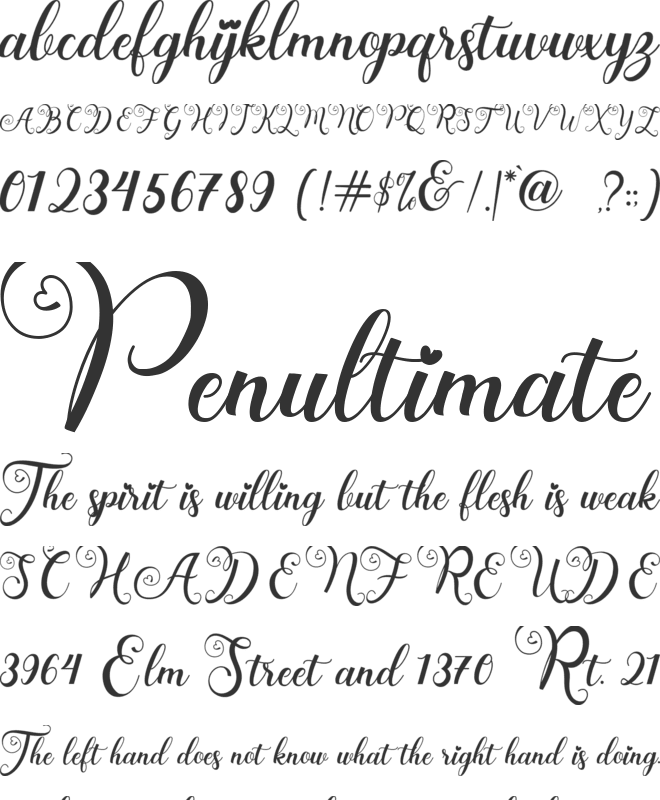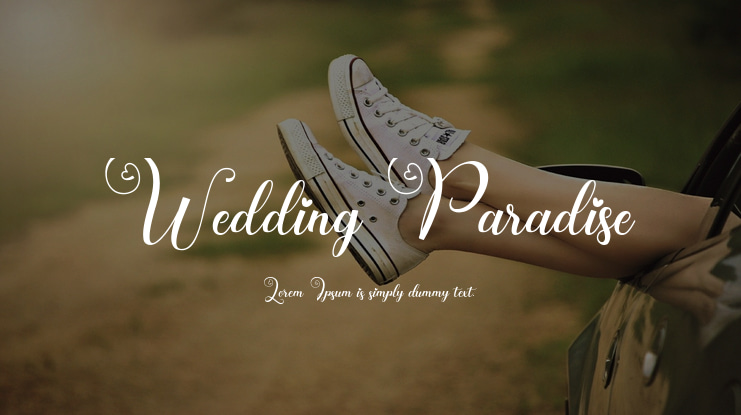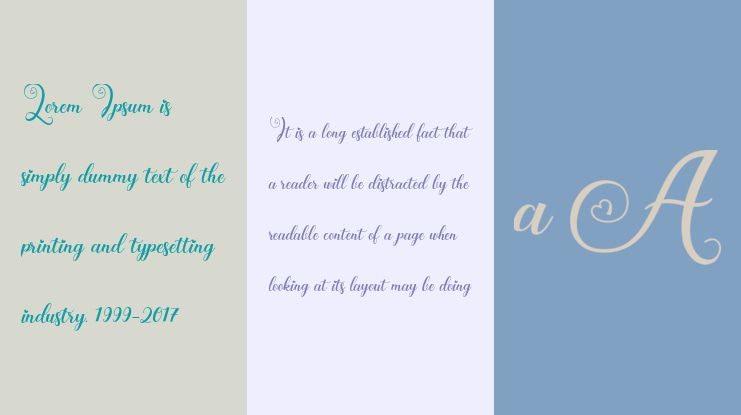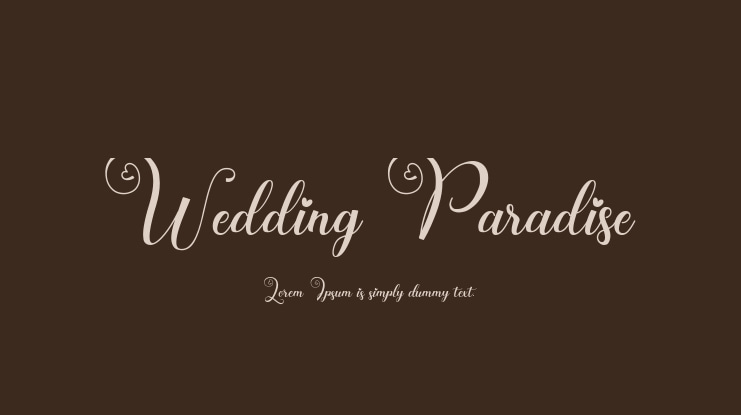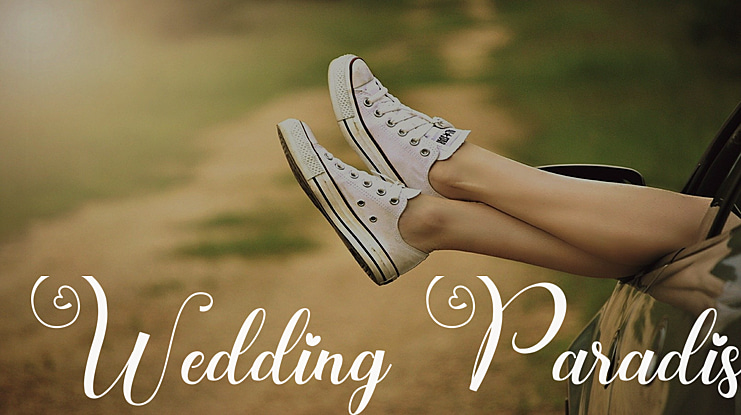
Wedding Paradise Font Family
Introducing Wedding Paradise - Calligraphy Script Font
Wedding Paradise is a smooth, elegant and stylish handwritten font. It has a beautiful and balanced character and as a result, fits perfectly into any card, invitation or wedding decoration design. as well as various other designs such as company logos, business cards, book titles, brand names, and others.